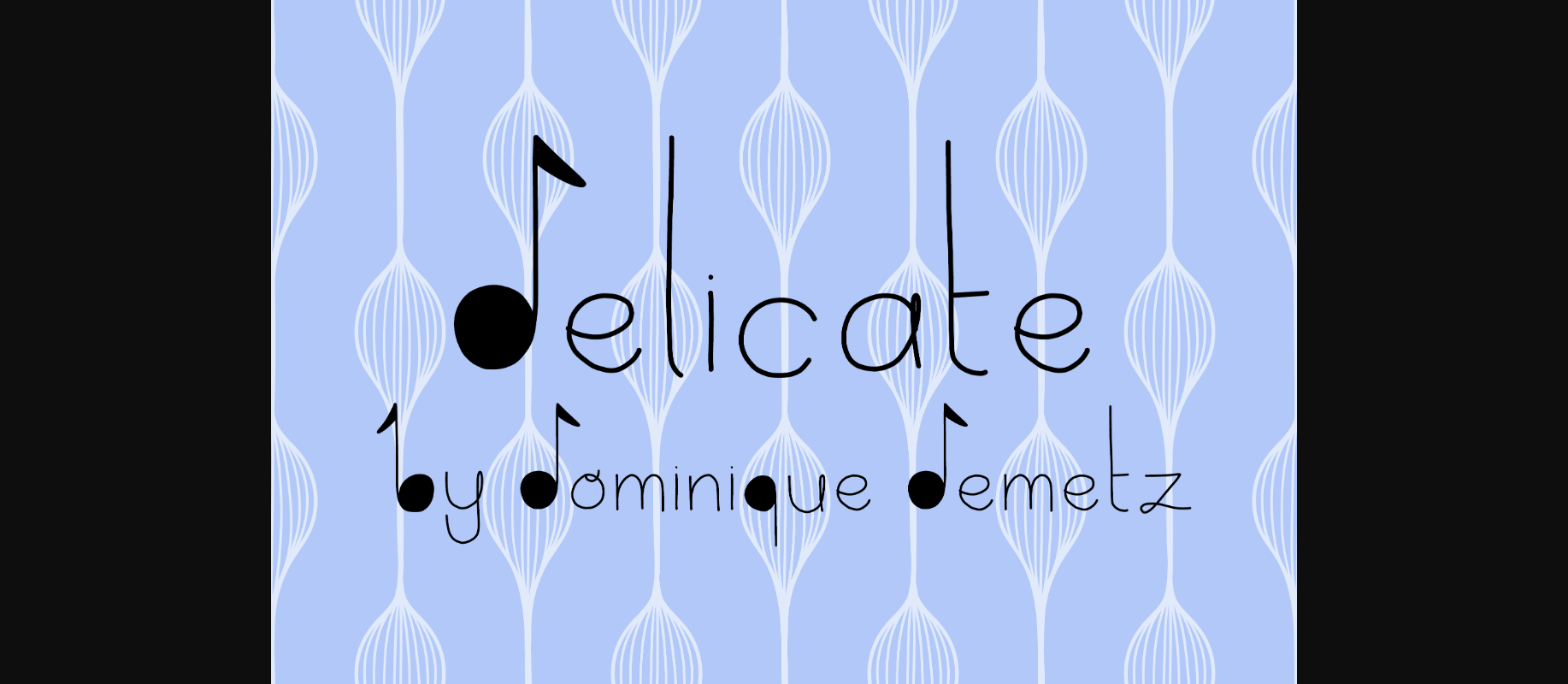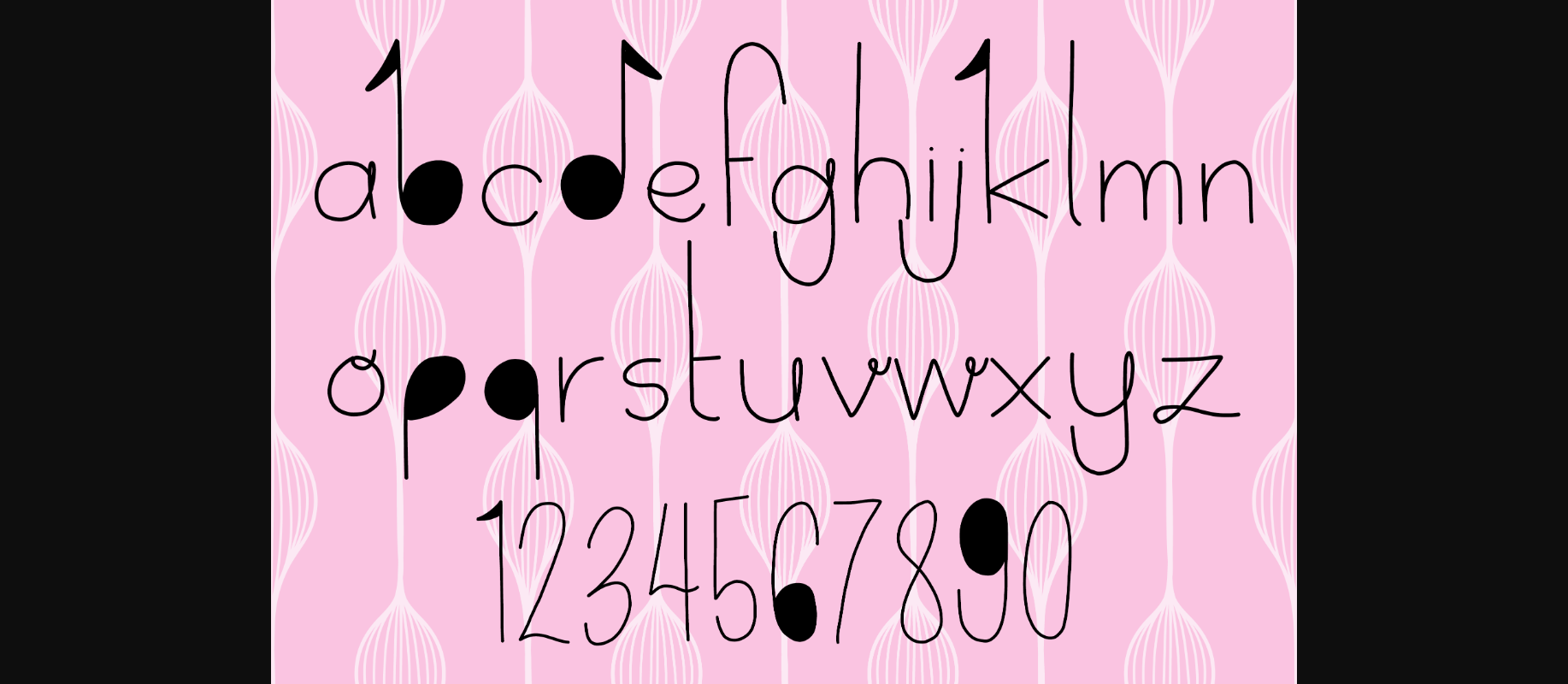
Delicate Font
About Delicate Font
Delicate is a namesake font; delicate and thin, this font looks great in youthful designs and in playful projects. This font is styled as a sans serif, making it legible and easy on the eyes in a number of different design scapes.